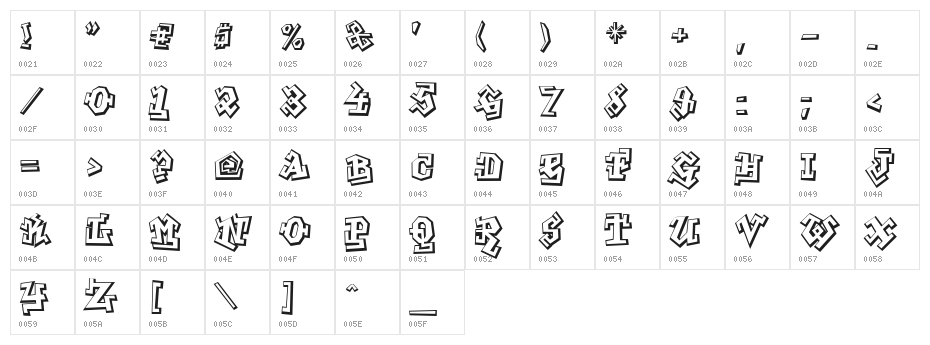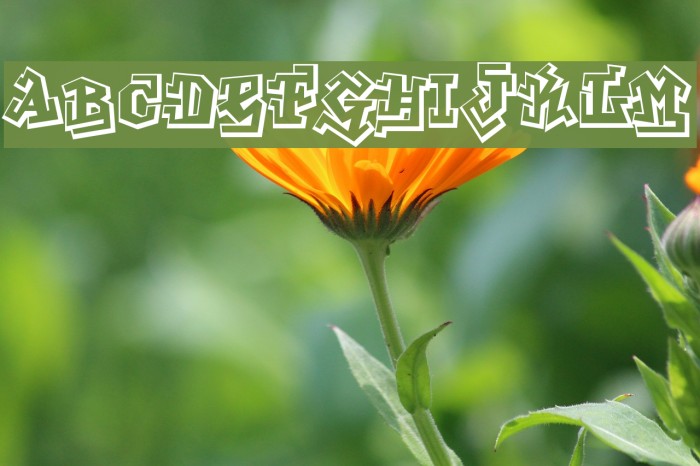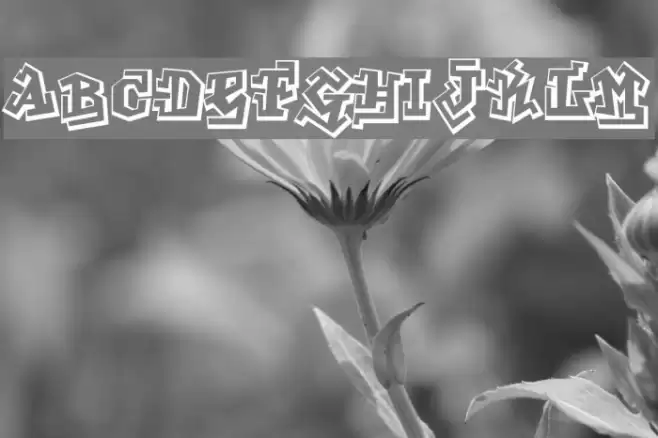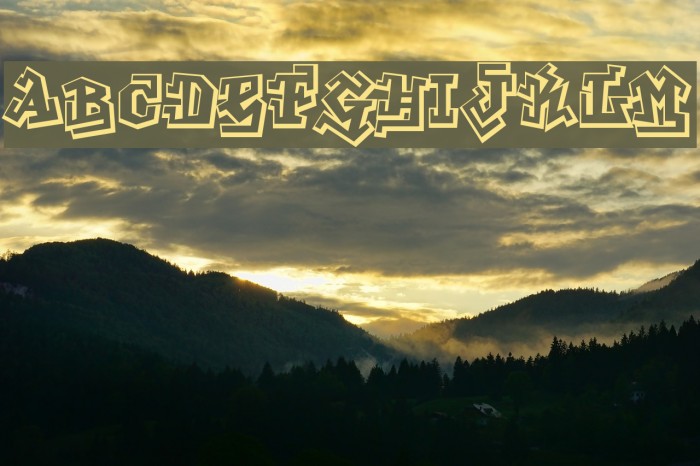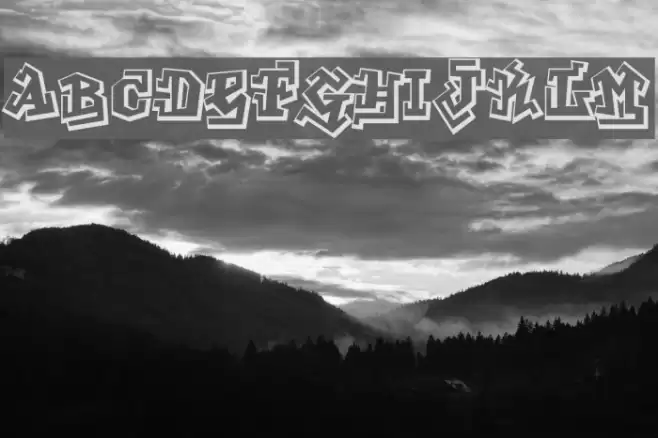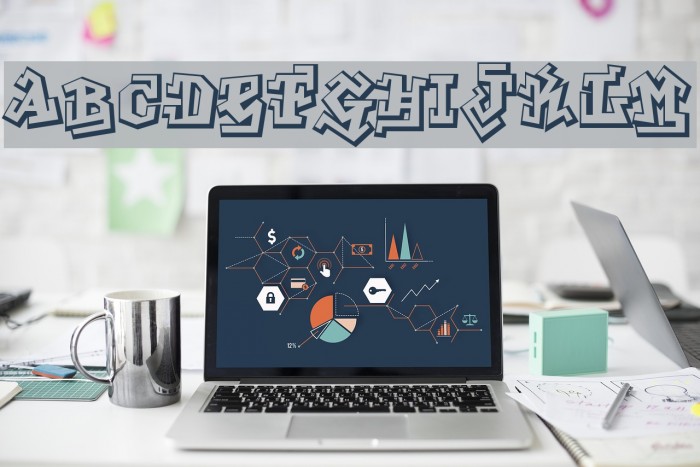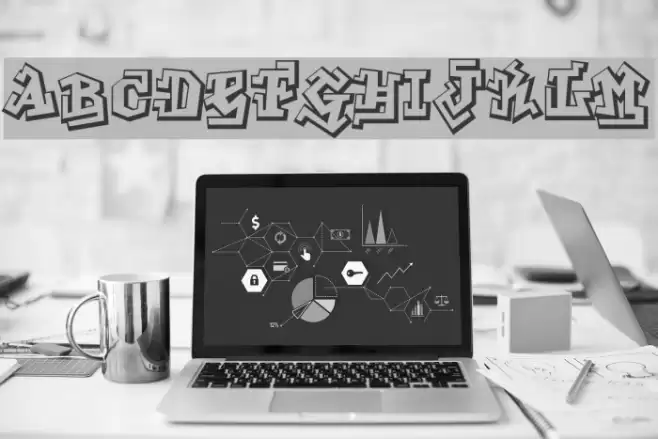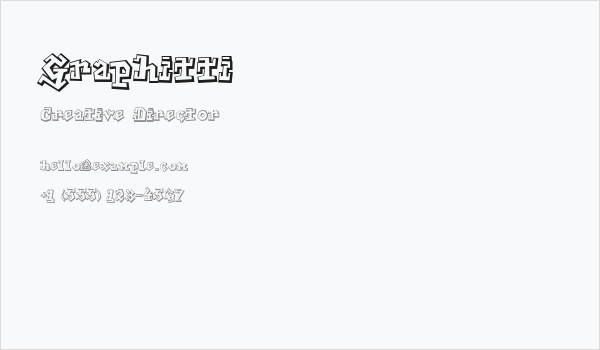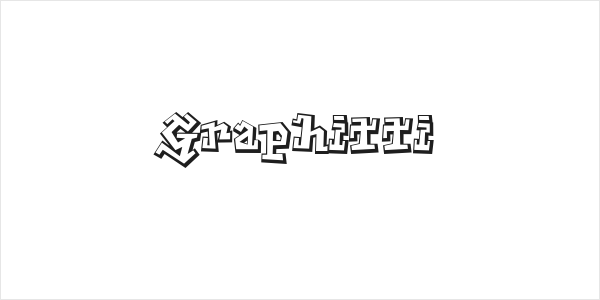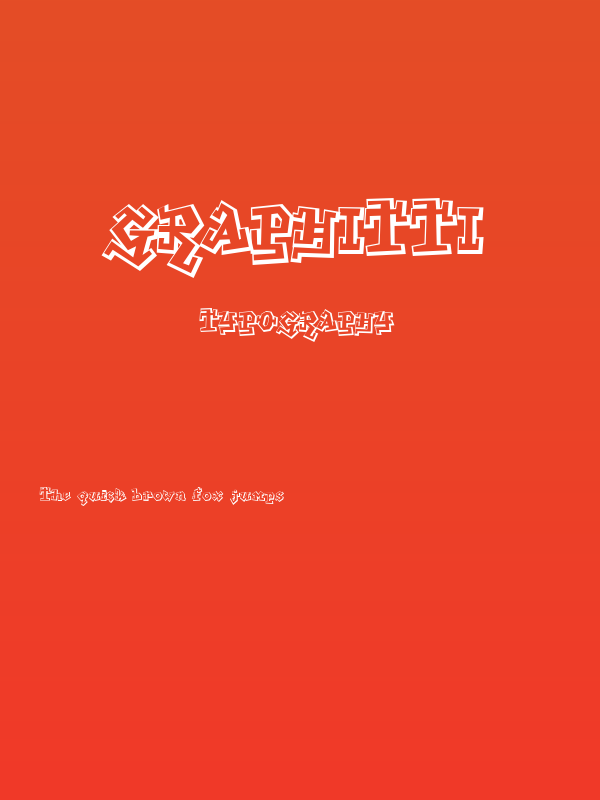
Graphitti Font
Graphitti Description
This font embodies a bold and dynamic graffiti style, characterized by its thick, angular strokes and three-dimensional shadow effects. The letters are designed with sharp edges and a playful, rebellious flair, reminiscent of urban street art. The uppercase and lowercase characters maintain a consistent aesthetic, with exaggerated serifs and a sense of movement. Numbers and special characters are equally stylized, adding to the font's cohesive and energetic appearance. This font is ideal for projects that require a strong, eye-catching visual impact.
| Overall Style | Urban, Rebellious, Energetic |
| Proposed Projects | Perfect for street art-inspired designs, music album covers, urban-themed posters, and edgy branding projects. |